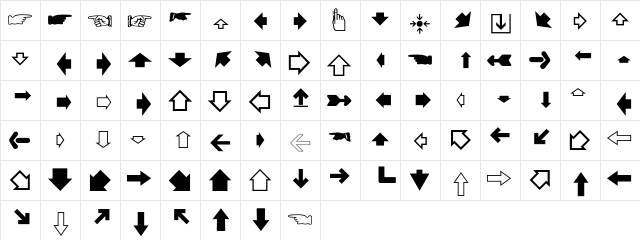
GeneralSymbols P01
GeneralSymbols offers clean, dependable letterforms without strong stylistic allegiance, making it a practical choice for designers who need flexibility.